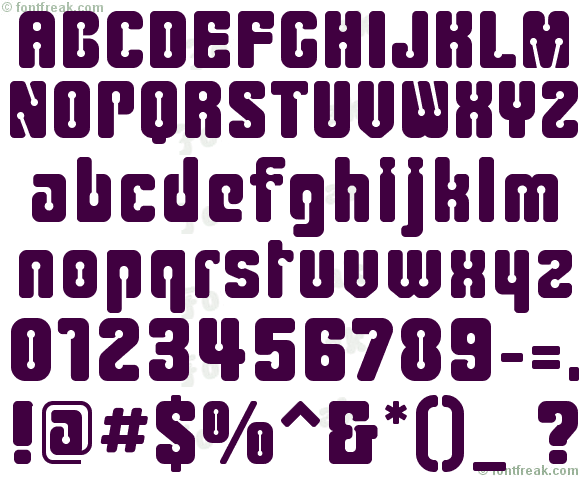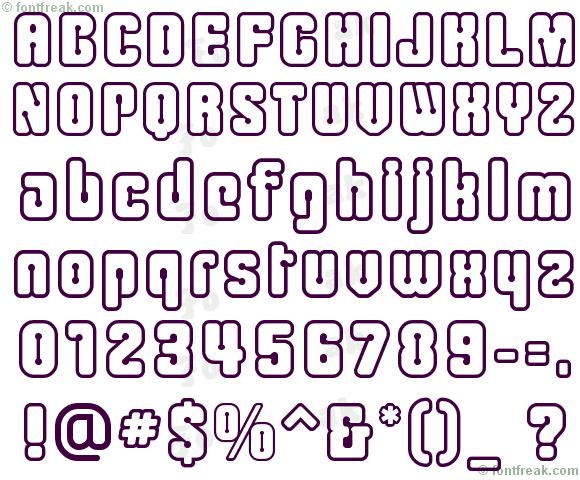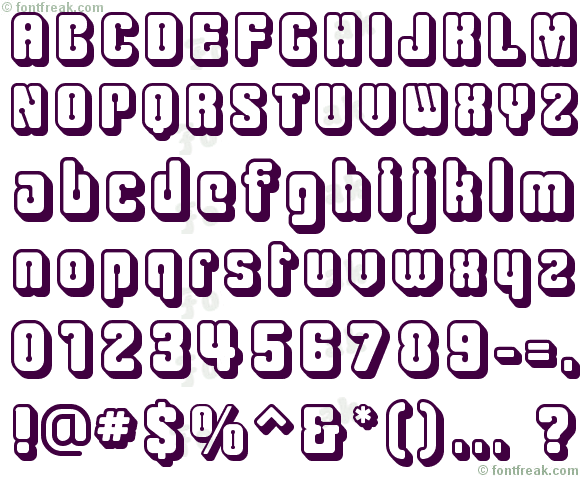
Clipe Shadow
Clipe Bold
Clipe Open
About Clipe
Clipe is a distinctive display font designed by Masa O. Shimojima and released under a freeware license. This playful font features rounded, bold letterforms that exude a sense of whimsy and creativity. The stroke weight is uniform, giving it a clean and contemporary feel, while the generous spacing between characters enhances readability. The font's design incorporates subtle shadow effects that add depth and dimension, making it visually engaging and unique.
Clipe is perfect for a variety of specific use cases. It excels in creating eye-catching movie posters that demand attention and convey a fun, lighthearted tone. Additionally, the font is an excellent choice for restaurant menus, where its boldness can enhance the visual appeal of food items and create a memorable dining experience. Wedding invitations can also benefit from Clipe's playful nature, bringing a touch of charm to the special day. Furthermore, content creators can utilize this font in social media graphics, ensuring their posts stand out amidst the digital noise.
The target audience for the Clipe font includes graphic designers looking for fresh design elements, small business owners aiming to create a unique brand identity, and content creators who need a font that resonates with their playful and creative messaging.
What sets the Clipe font apart is its ability to merge fun and functionality seamlessly. Its distinctive design, combined with the ease of a "Clipe font free download," makes it an accessible option for anyone looking to elevate their visual projects. Whether for professional or personal use, Clipe adds a touch of creativity that can transform any design into a standout piece.